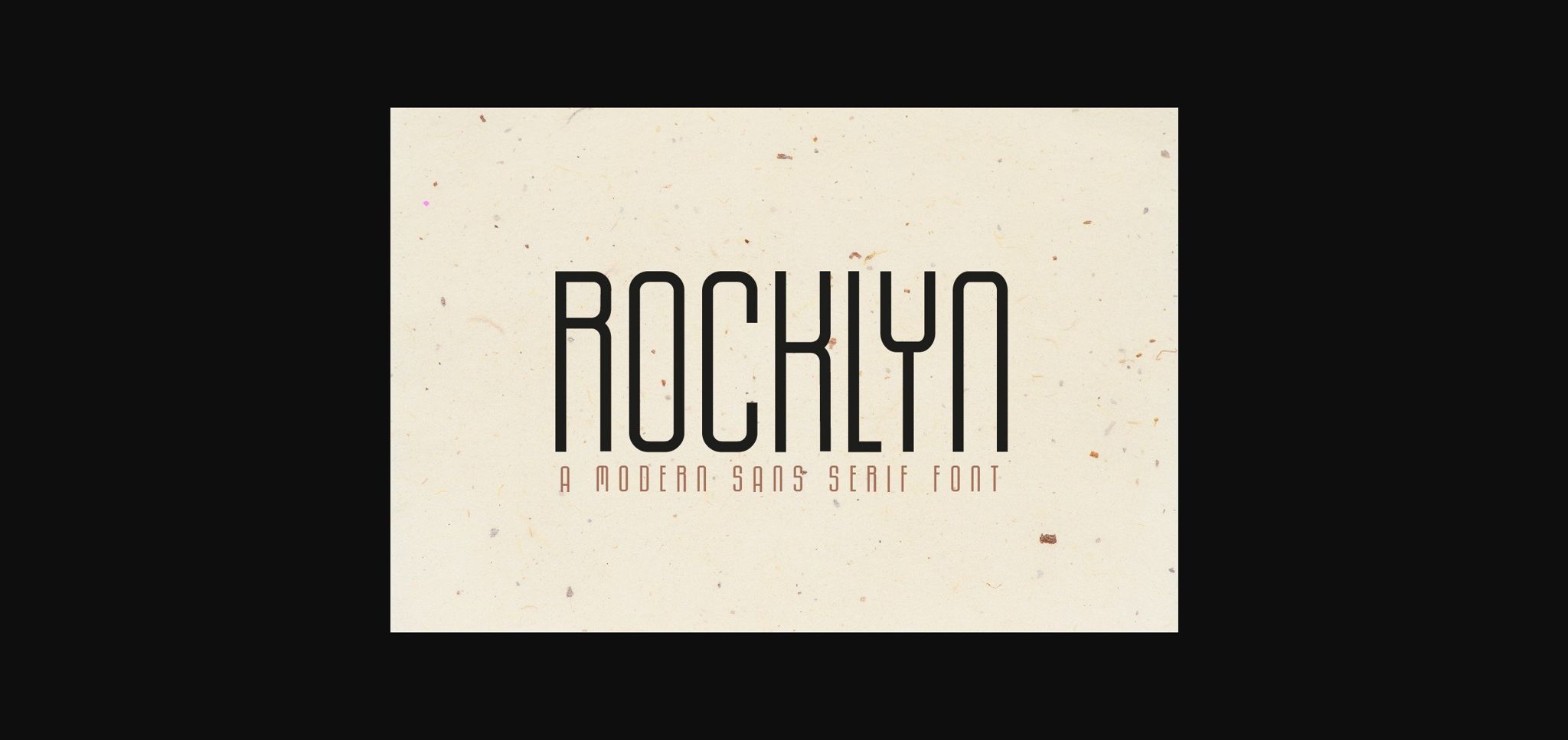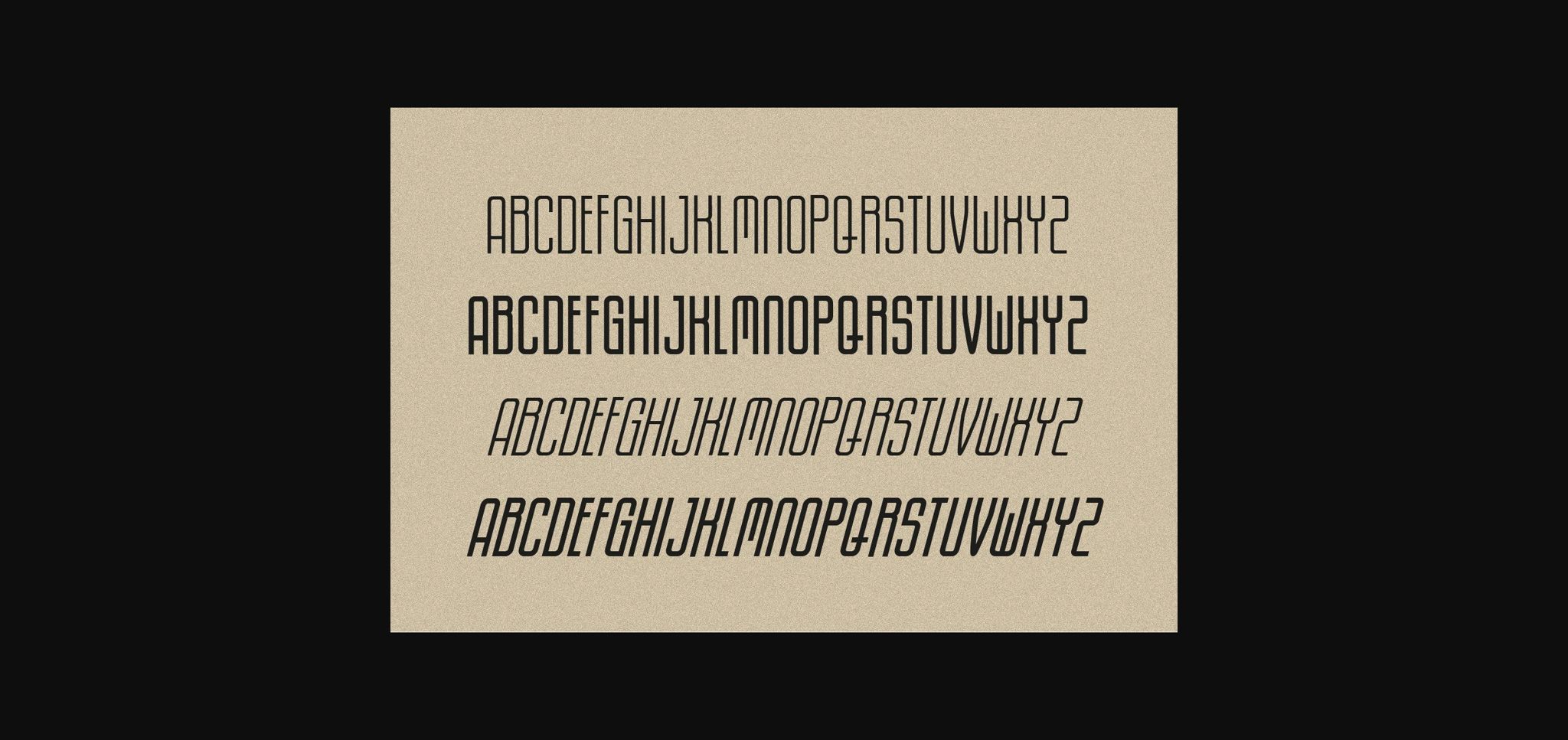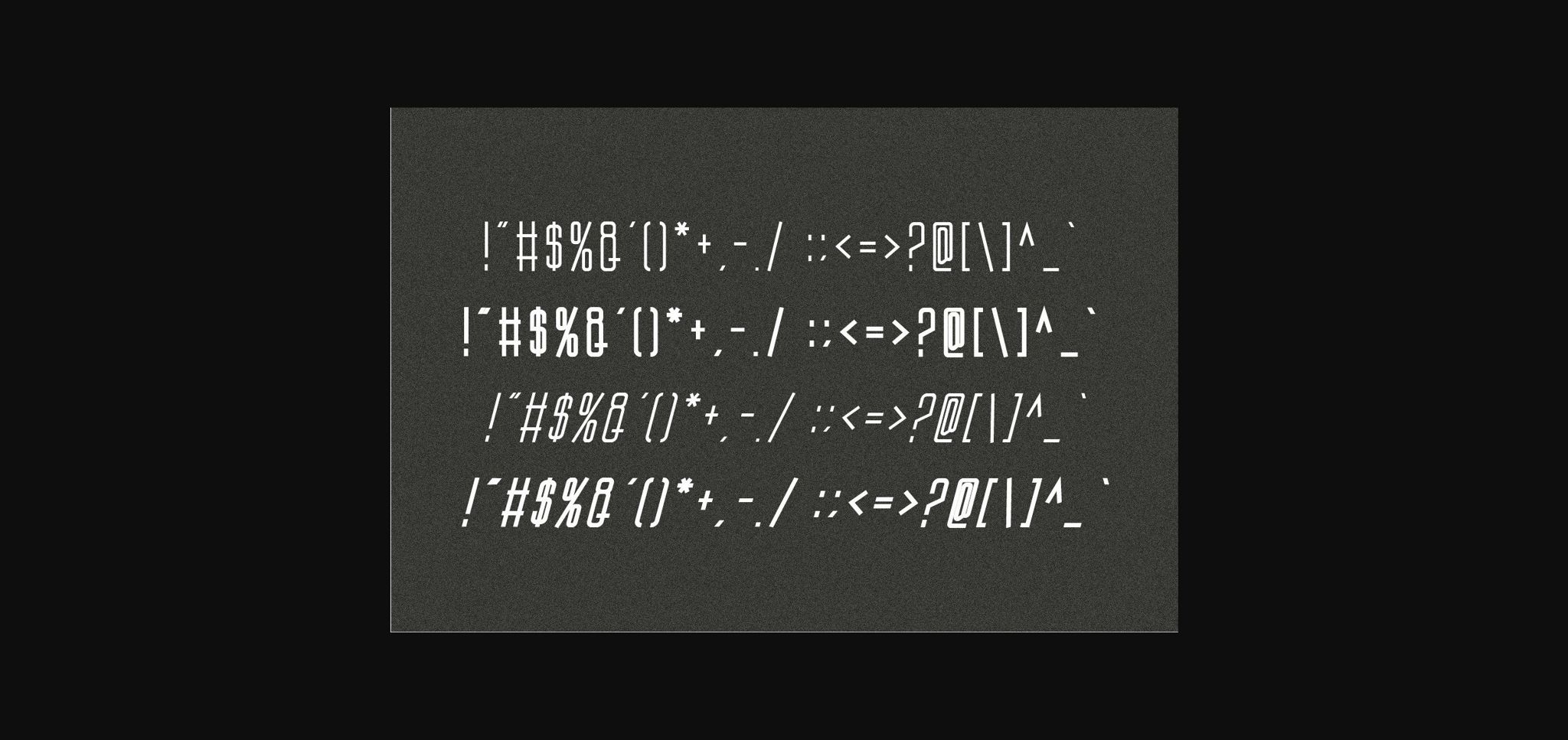
HomeSans Serif FontsRocklyn Font Sans Serif Fonts Rocklyn Font FacebookXPinterestWhatsApp 1 of 5 ... Rocklyn Font Poster 2... Rocklyn Font Poster 3... Rocklyn Font Poster 4... Rocklyn Font Poster 5... About Rocklyn Font Rocklyn is a modern sans serif font designed to complement every project you’re working on. Use it to create beautiful headings, gorgeous invitations, stunning logos, and so much more!! DOWNLOAD NOW People also explored Rainy Season Font Sarpin Wonder Font Adoredly Script Font Zippy Font Axelords Font Emencut Font Apotaris Font Veruttala Font Springbee Font 372 0 TagsRocklynRocklyn Font Previous articleScolth FontNext articlePerfect Moment Font LEAVE A REPLY Cancel reply Comment: Please enter your comment! Name:* Please enter your name here Email:* You have entered an incorrect email address! Please enter your email address here Website: Save my name, email, and website in this browser for the next time I comment. Personal Use Free Goldsaber Personal Use Free Read more about this font Deling Personal Use Free Read more about this font Dealisya Personal Use Free Read more about this font Recharge Bold Personal Use Free Read more about this font BLOG 5 Fonts That Will Dominate Design Trends in 2026 5 Fonts for 2026 That Will Dominate Design Trends Typography plays a critical role in visual communication, and as we look ahead to 2026, it’s... Free vs Paid Fonts: Why Investing in Premium Fonts Is Worth It To increase your work productivity, choose the most readable fonts. Top 7 Google Fonts Alternatives for Faster and Privacy-Friendly Web Design (2025)